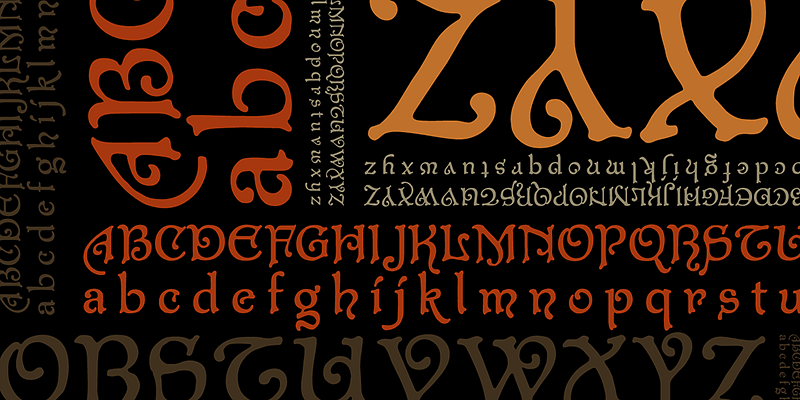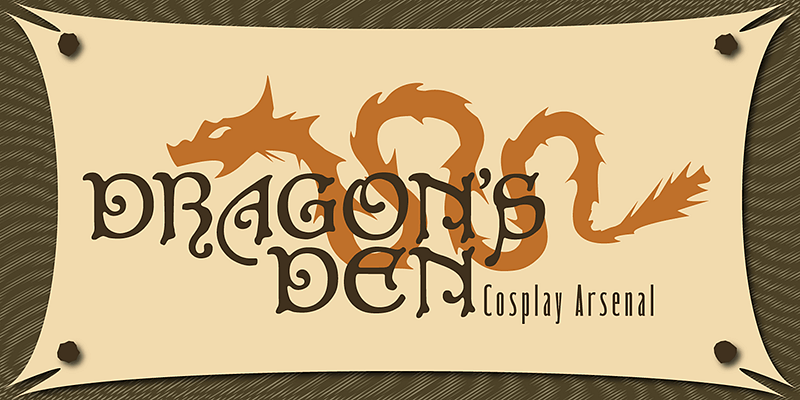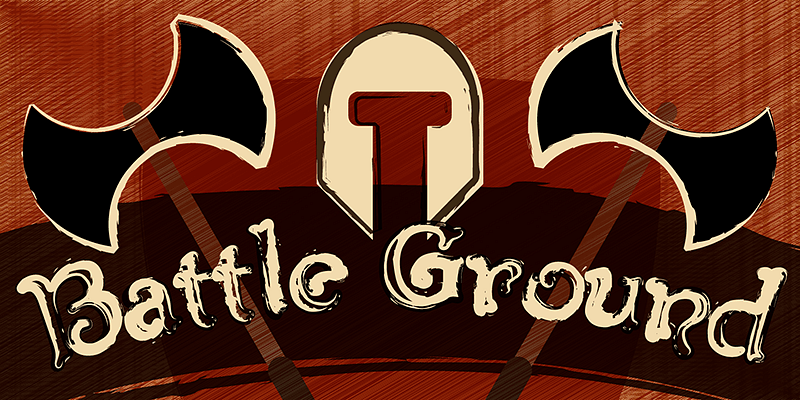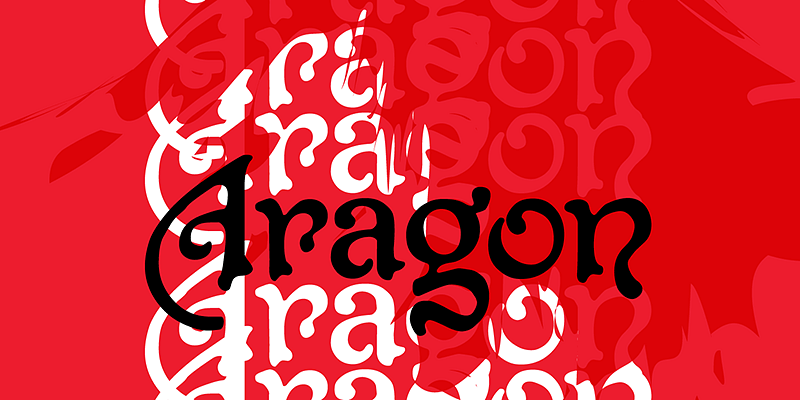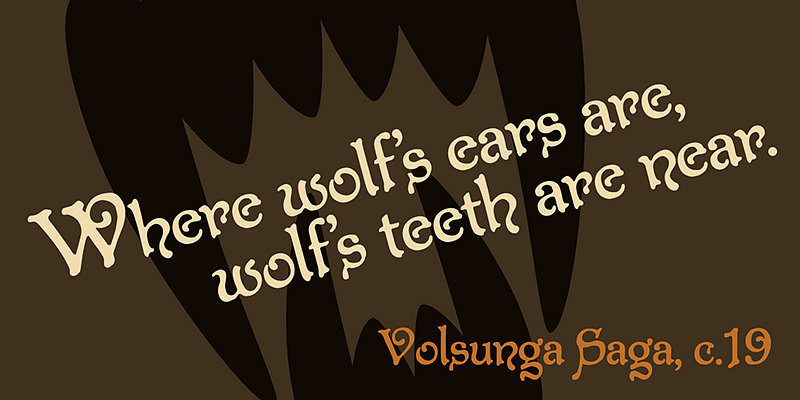
P22 Aragon is a whimsical font with robust curlicues. Designed for display lines on show programs, posters, print ads etc. Many of the letters are based on rounded Lombardic medieval forms.
P22 Type Foundry specializes in historical typefaces inspired by art, history, and science. The company was created in 1994 in Buffalo, New York, by co-founders Richard Kegler and Carima El-Behairy. The breathtaking array of fonts — which have appeared in films and on numerous commercial products — offers an impressive cornucopia of styles for companies and designers. The P22 Type Foundry collection focuses on historical letterforms that would never have been available in digital form otherwise.